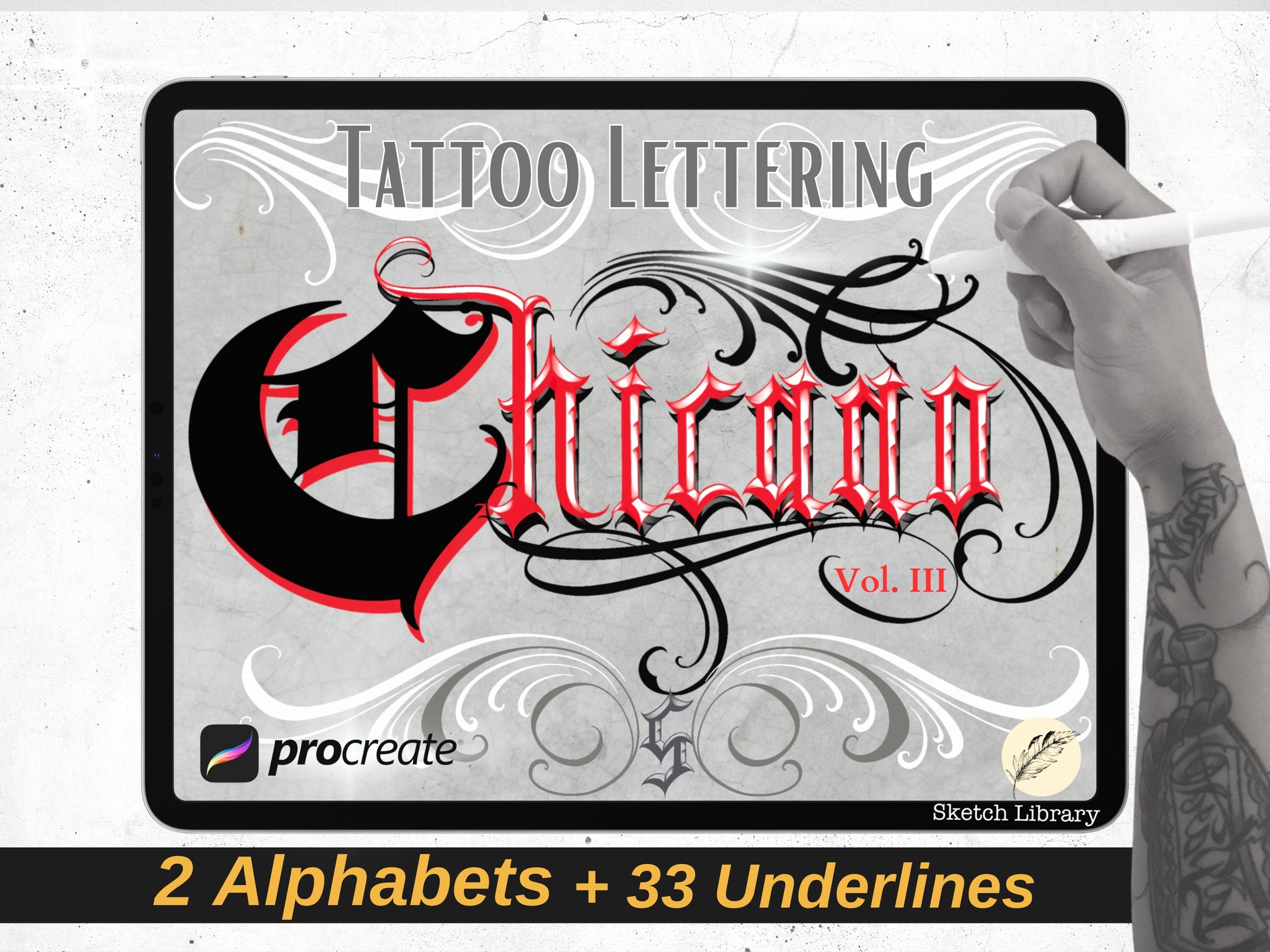
Chicano Tattoo Letters vol.3, Brushes for Procreate on Ipad pro, Ipad, tattoo stamps, tattoo lettering, font, alphabet, Calligraphy, graffiti
Tattoo Letters (Chicano vol.3) Brushes for Procreate on Ipadpro & Ipad, tattoo stamps
In this set of brushes, this is a chicano style letter alphabet created by tattoo artist: Rina Jonson (Yann Rajaonson), for the PROCREATE application.
- 26 Chicano Capital letters
- 26 Chicano lowercase letters
- 33 swirls / underlines